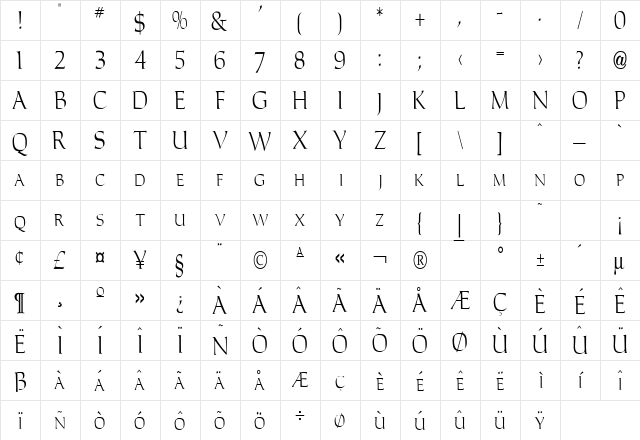
Carla Thin Normal
Design Context for Carla Thin Typeface
Carla Thin takes a measured approach to typography — its balanced proportions and neutral character make it a reliable workhorse for both digital and print work. Its slender proportions lend an understated elegance to any composition.